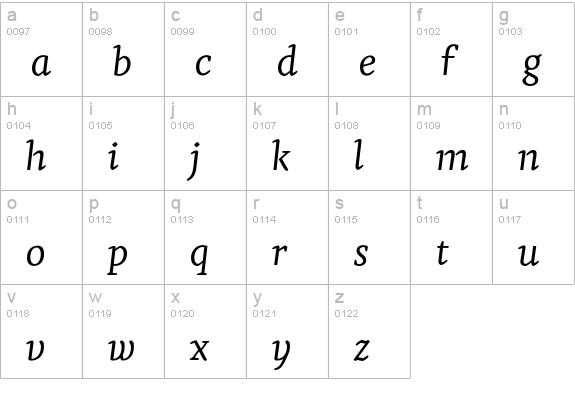
Agendatype Italic is a distinctive, italic variant in the Agendatype typeface family \xE2\x80\x94 well suited to design and typography projects.
Agendatype Italic font exudes elegance and sophistication with its slanted letterforms that add a touch of flair to any design project. The sleek and modern design of this font makes it perfect for creating eye-catching headings, titles, and logos. With its clean lines and stylish curves, Agendatype Italic is ideal for conveying a sense of professionalism and refinement. And the best part? Agendatype Italic font is completely free to download at FontsMarket.com! Now you can elevate your designs without breaking the bank. Don't miss out on this opportunity to enhance your projects with the timeless beauty of Agendatype Italic font. Download it today and take your designs to the next level!